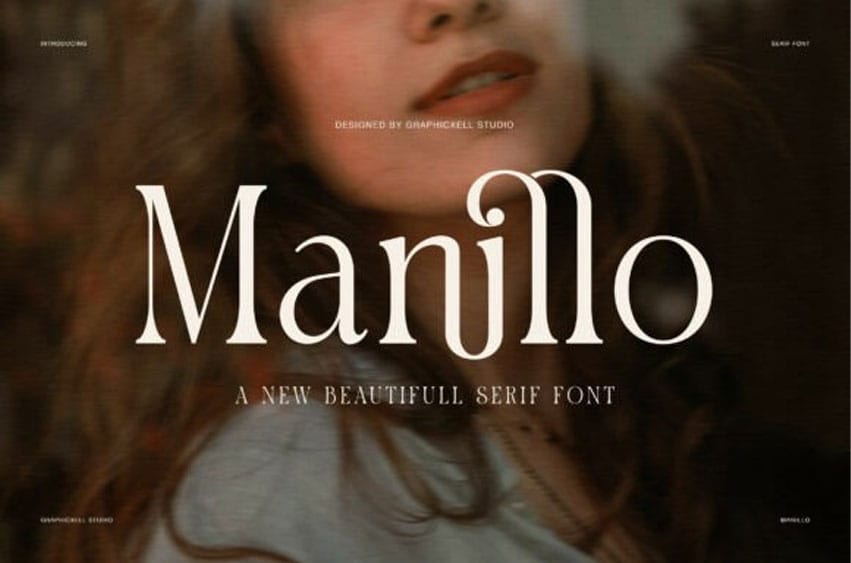
Manillo Font is an elegant serif font with a soft modern mood and a refined classic base. It blends slim serif structure with rounded curves, light contrast, and graceful details. As a result, it feels clean, calm, and very stylish.
At first glance, Manillo looks simple. However, the beauty of this font lives in its subtle shape. The letters are smooth and balanced, while several characters carry soft curves that give the font a warm and polished tone. Because of that, Manillo feels timeless, yet still fresh for modern design.